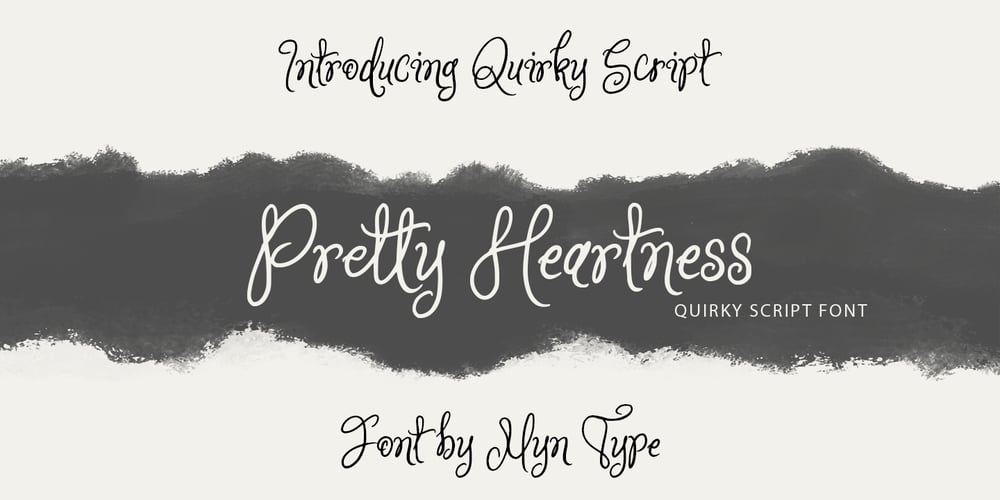
Pretty Heartness Font Family was designed by Suyuti Amien and published by Myn Type. Pretty Heartness contains 1 styles and family package options. Pretty Hearts is delightful and charming handwriting script font that dances on the page with its quirky strokes. The letters are full of unexpected loops and curls, giving them a distinct whimsical flair. Every stroke seems to take a little dance, creating a sense of movement and liveliness.This font perfect for invitations, greeting cards, logo design, packaging, wedding design, display product, quote, calligraphy logo, and any design that need charming and delightful touch.